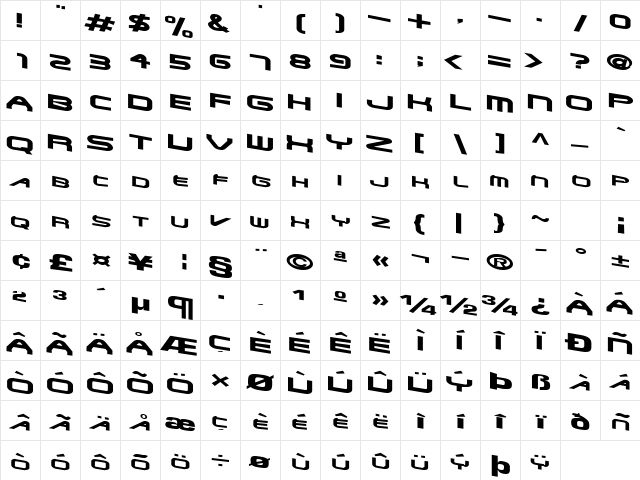
TurnAbout121 Regular
Design Context for TurnAbout121
TurnAbout121 is a composed and adaptable typeface that performs quietly and consistently across a wide range of design contexts.
Pro Tip: Use TurnAbout121 in both headline and body roles to test its range before committing to a single application.